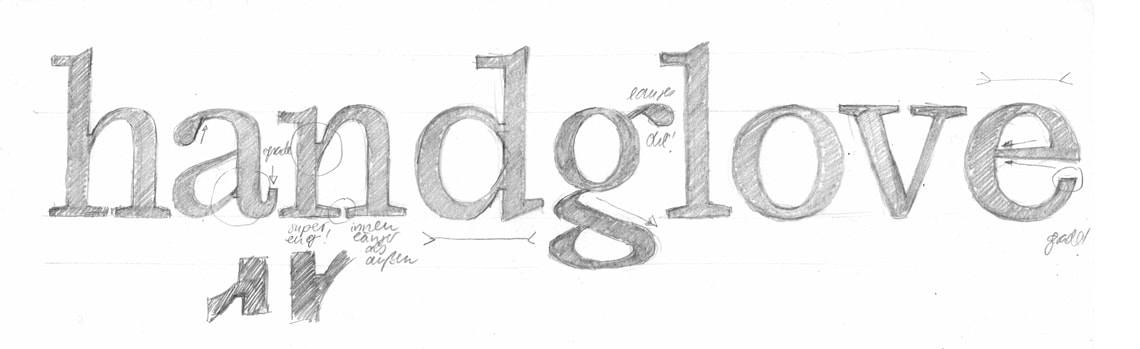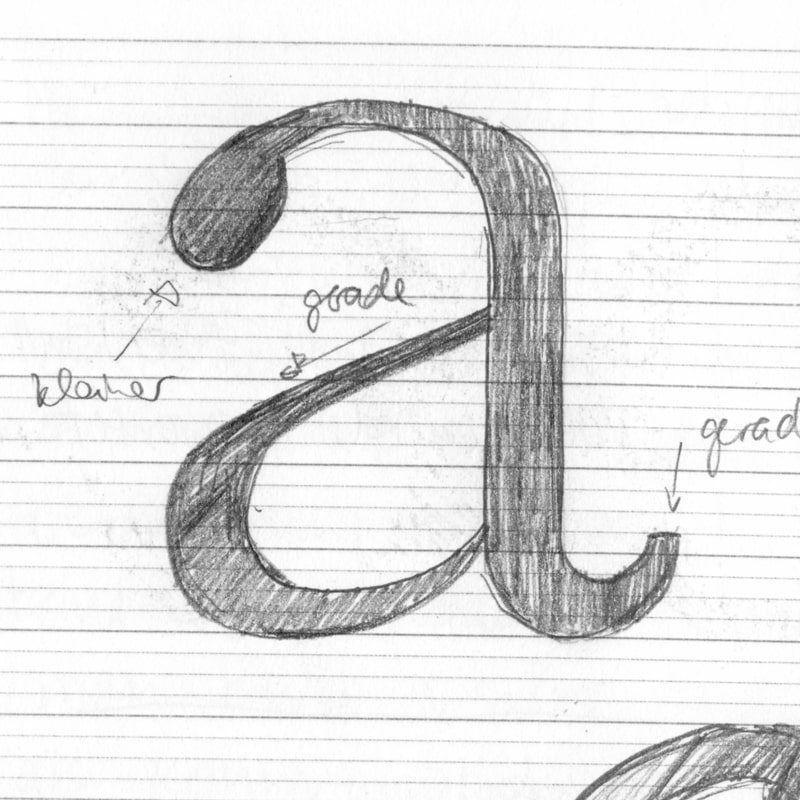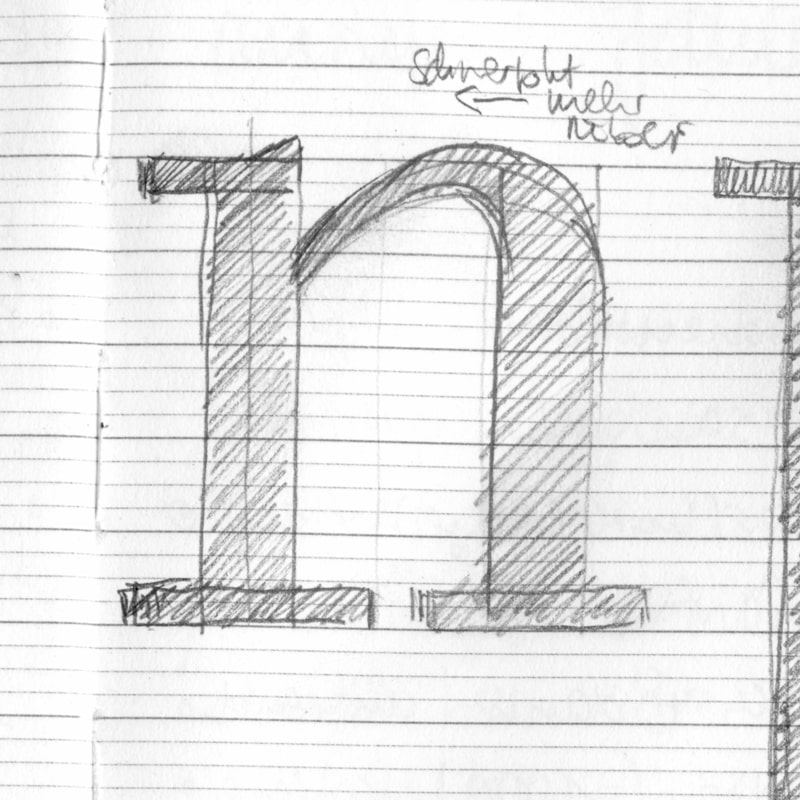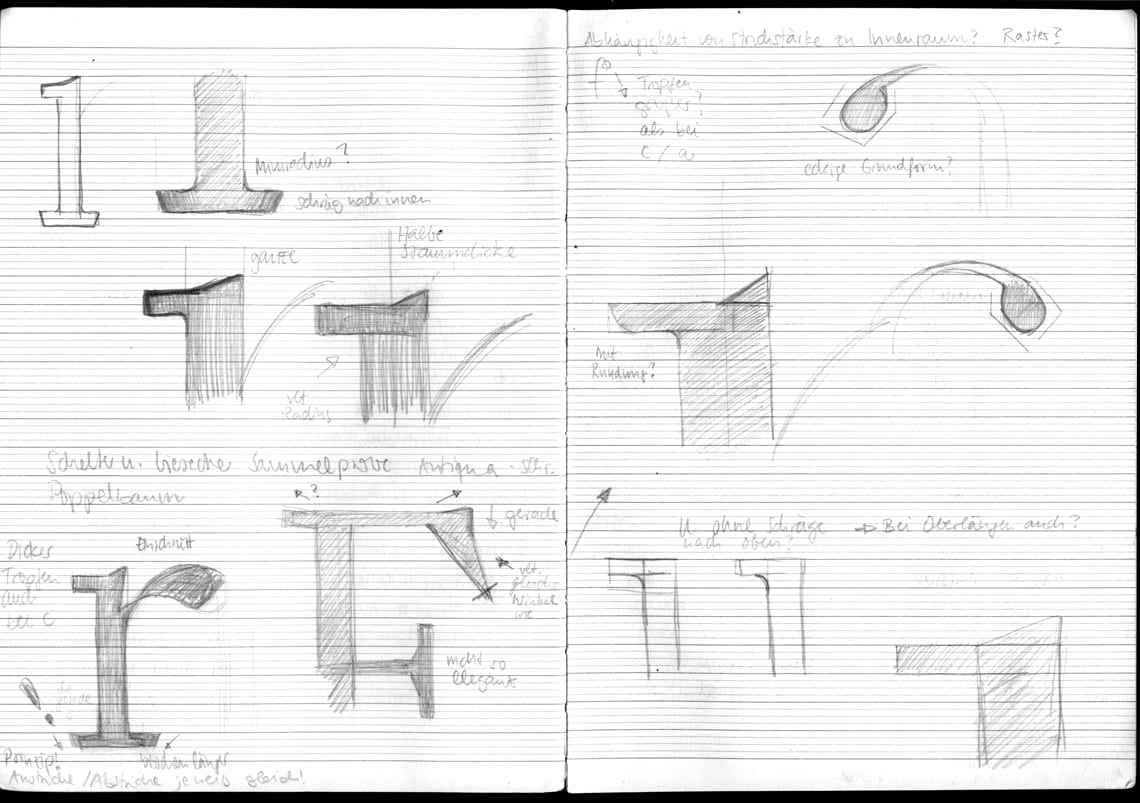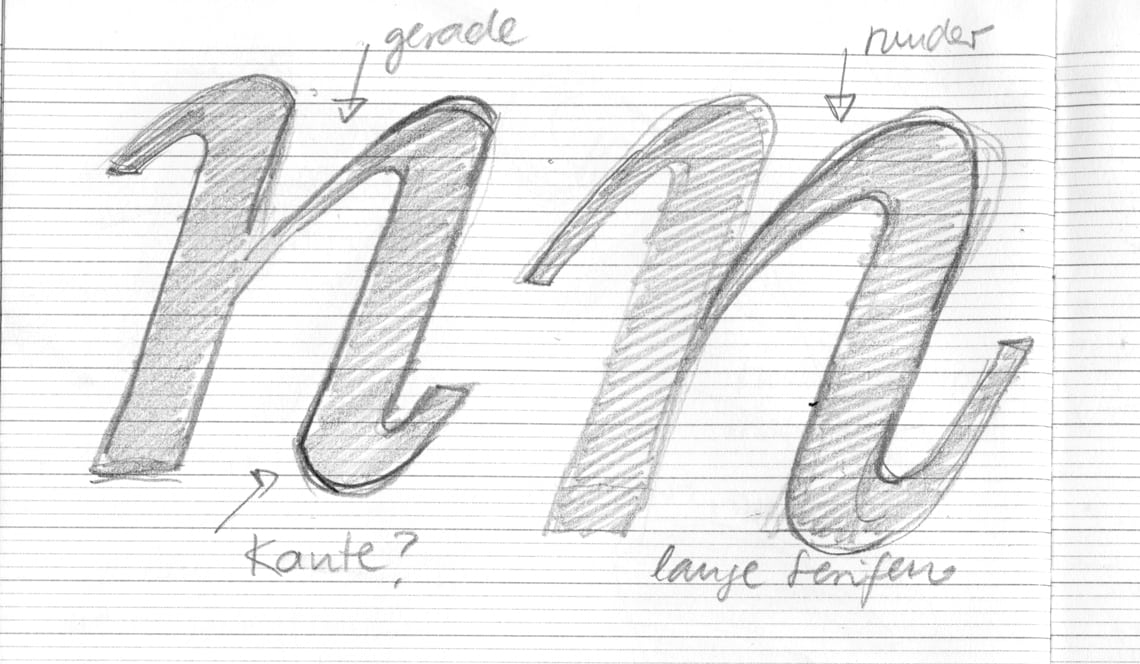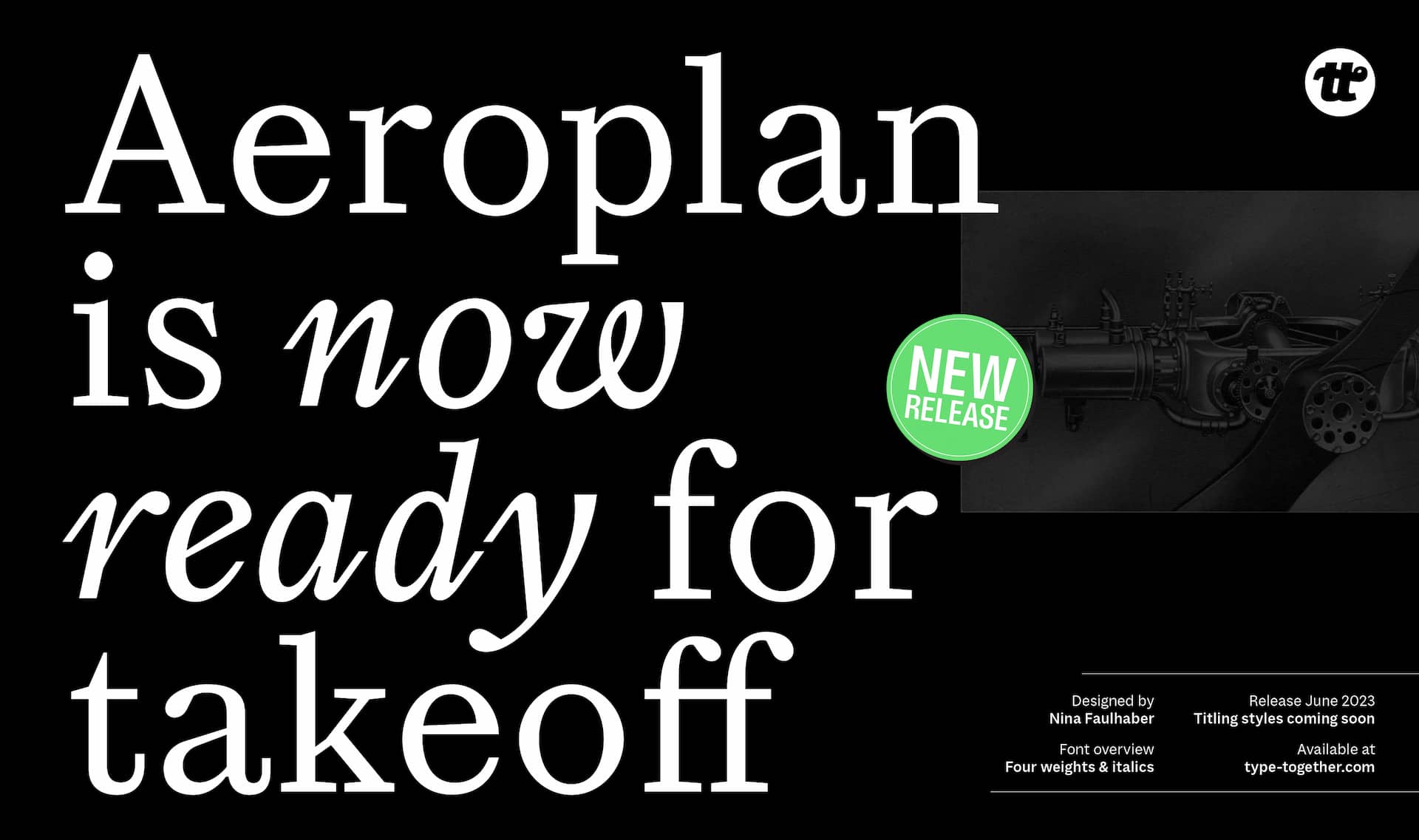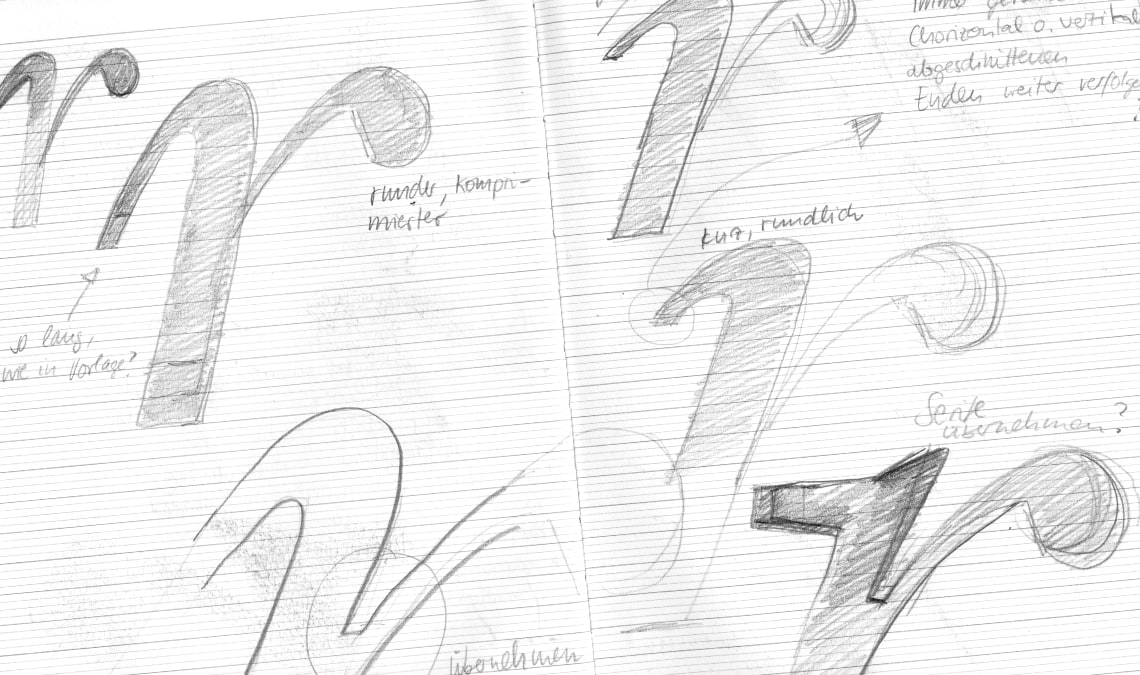
Aeroplan inbound
In June 2023, TypeTogether released a new typeface by Nina Faulhaber, the 2021 Gerard Unger Scholarship recipient. In our previous interview, we had the chance to talk to Nina about her artistic background, her journey to type, and the aircraft engines. Now, we can finally introduce and celebrate Nina’s first real typeface. Ladies and Gentlemen, welcome Aeroplan!
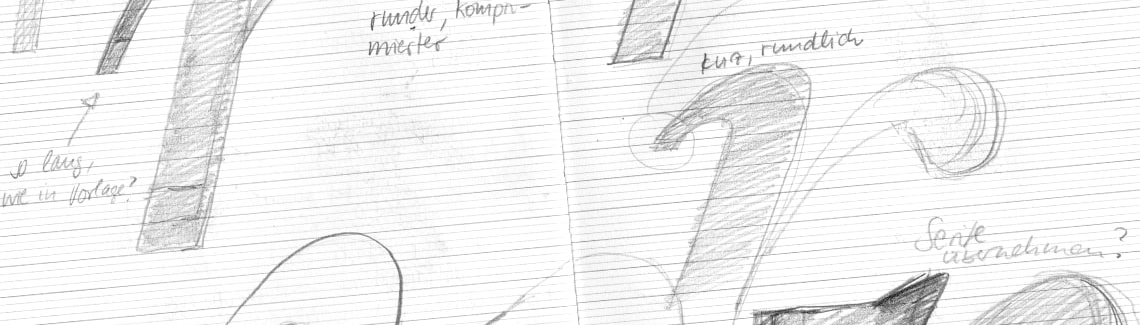
Hi Nina, congratulations on releasing your first complete typeface! How would you introduce Aeroplan in a few sentences?
Aeroplan is a contemporary text typeface that was created as a revival based on a historical source. I wanted to design my own interpretation of that source which shows its digital spirit, but also transports the original character with its very own individual charm.
How long does it take to create a font from the first sketch to final release?
I started in 2019, so it’s been some years now, but of course I didn’t work full time all the time on the typeface. It had some resting periods which were really important to let it grow. And for me to gain some experience and work on it later. I think, it was the right amount of time for this typeface.
What was the most difficult part of the design process?
There are difficulties appearing all the time, but for me the technical part was difficult. It was my first really big typeface, so the learning process was difficult but also challenging and rewarding. And also staying motivated for such a long time can also be very difficult; it is not just designing pretty letters, there is a lot of stuff to do that is considered boring by many.
How did winning a Gerard Unger Scholarship improve Nina’s work? Would it be possible to complete such a big project on her own? And is she happy with the result?